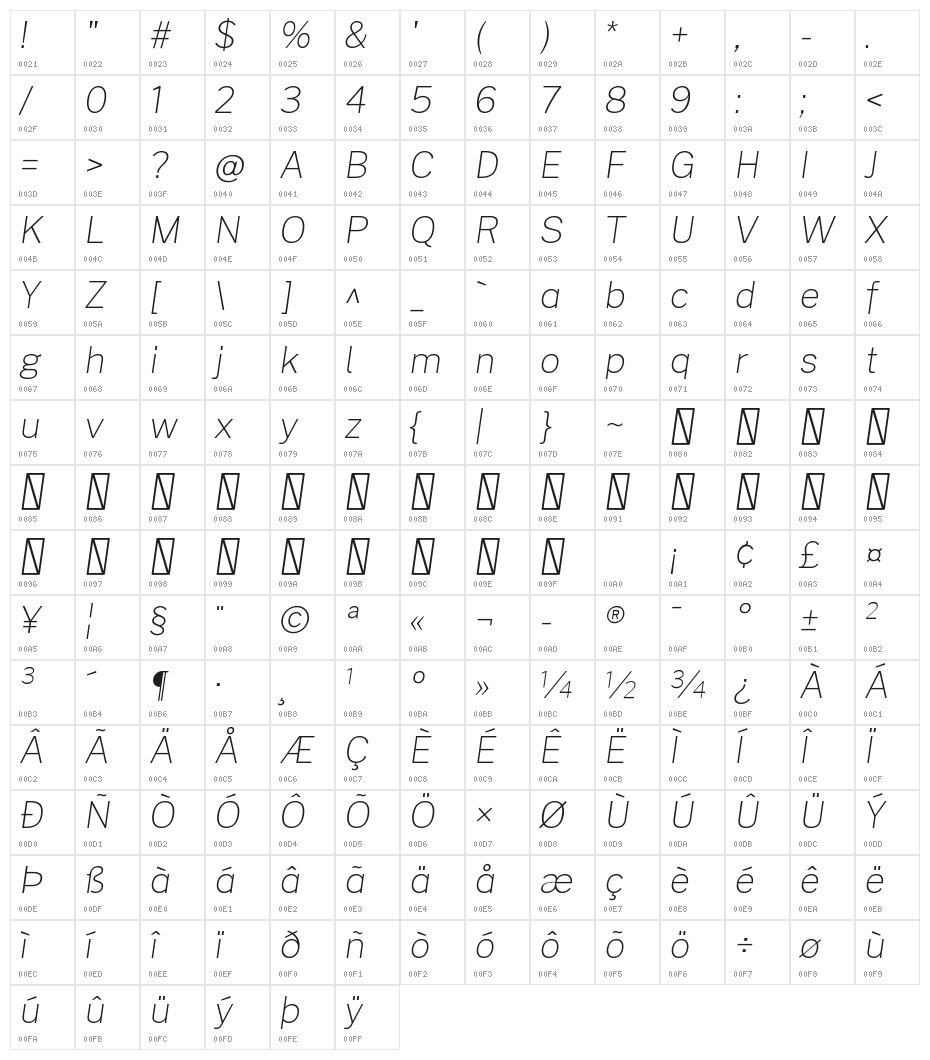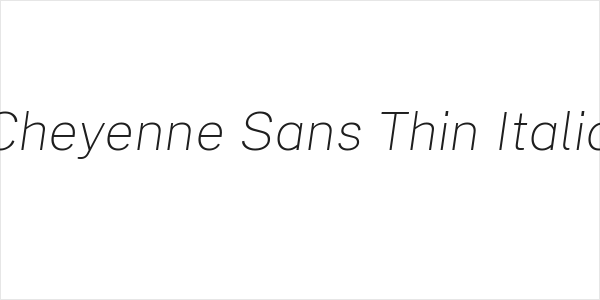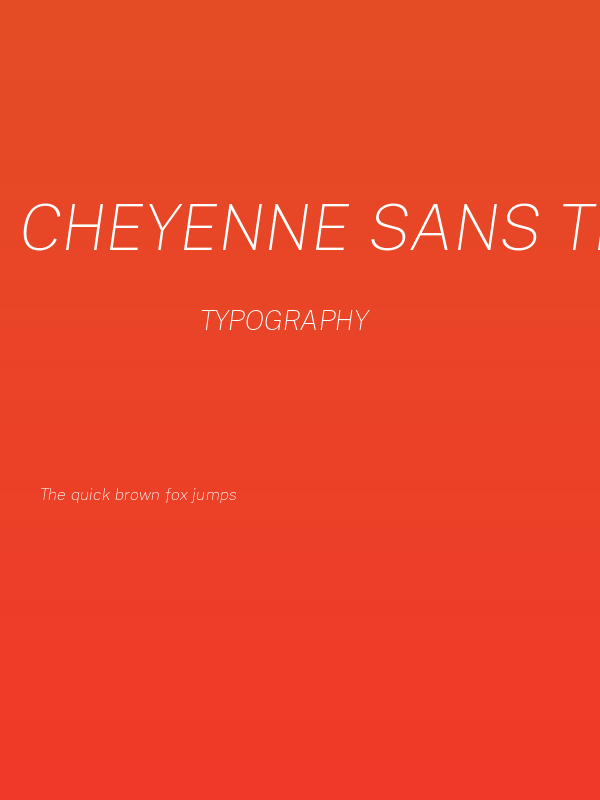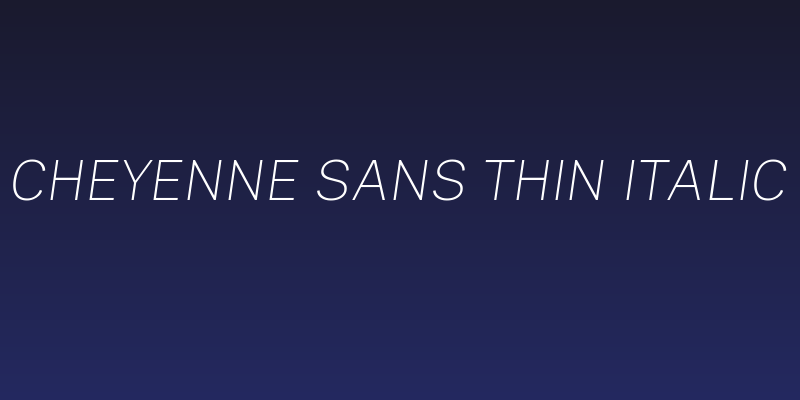
Cheyenne Sans Thin Italic Font
Cheyenne Sans Thin Italic Description
This font exhibits a sleek and modern aesthetic with its thin, elegant lines and slight italic slant. It features a sans-serif style, providing a clean and minimalist appearance. The characters are well-proportioned, with a consistent stroke width that enhances readability. The uppercase and lowercase letters maintain a harmonious balance, while the numerals and special characters integrate seamlessly into the overall design. The font's subtle curves and angles contribute to its sophisticated and contemporary look, making it suitable for a variety of design applications.